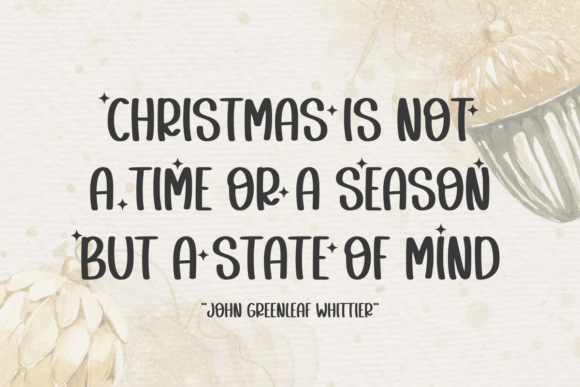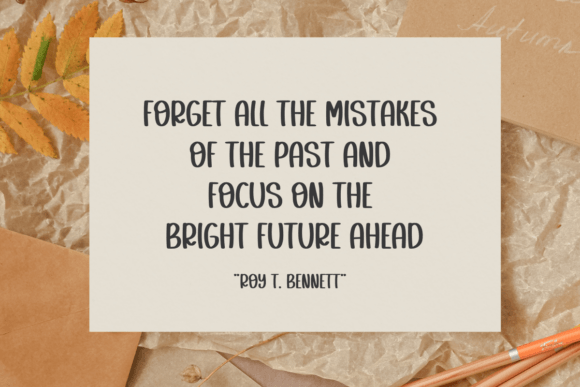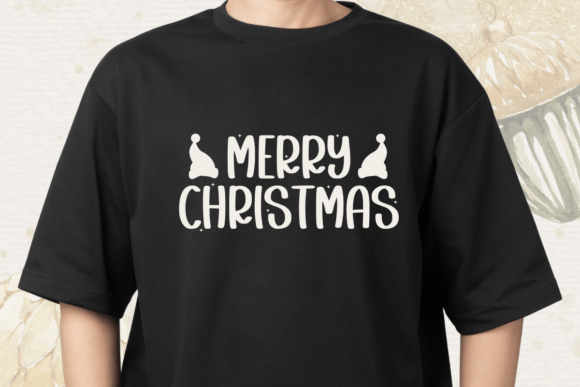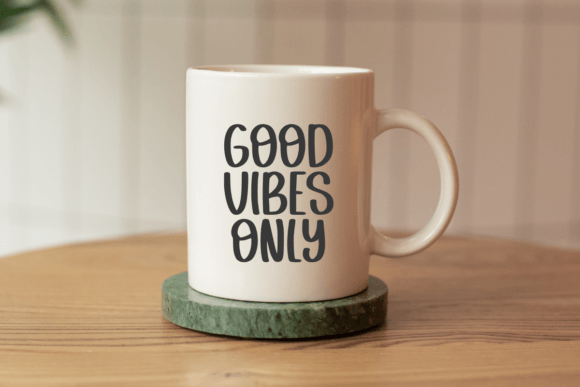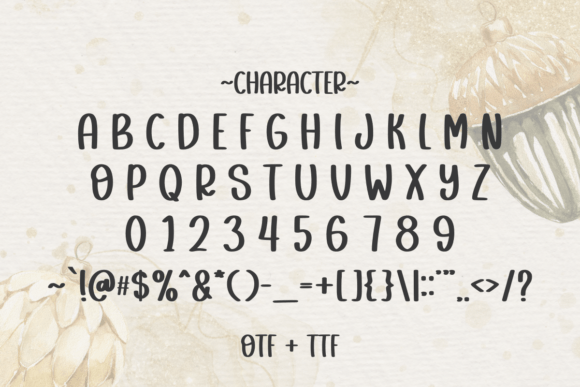
Introduction to Merry Modern Font
Have you ever found yourself rummaging through old family albums or Pinterest boards, searching for the perfect font to give your next creative project that extra oomph? For many designers, the hunt for the ideal typography is a never-ending journey, and it’s easy to get stuck in a rut. But what if I told you that there’s a font that’s sure to put a smile on your face and a spring in your step?
Enter the Merry Modern Font, a fun, bold sans serif font that’s inspired by the whimsical world of birthday invitation typography. This high-quality font is a design resource that’s perfect for any project that needs a dash of retro charm and a whole lot of personality. From t-shirt designs to planners, interior decor, and everything in between, the Merry Modern Font is a versatile and valuable addition to any designer’s toolkit.
Whether you’re looking to give your next project a free download feel or need a font that can handle a transparent background, the Merry Modern Font delivers. With its bold lines and playful vibe, this font is sure to be a hit with designers of all levels, from beginners to seasoned pros.
Key Features of Merry Modern Font
- High-quality, vector-based design for crisp and clear display in any size, perfect for creative projects and designs.
- Transparent background, making it easy to customize and combine with other design elements.
- Designed to be highly scalable, ideal for use in various design sizes, from small text to large headings.
- High-resolution design, suitable for use in print and digital media, including business cards, brochures, and website headers.
Honest Review: Merry Modern Font
As a designer, I’m always on the lookout for high-quality design resources to elevate my creative projects. The Merry Modern Font caught my attention with its sleek and modern aesthetic.
What works well: ✨ The Merry Modern Font has a very transparent background, making it perfect for overlaying on top of images or other design elements. The font itself is highly customizable, with a wide range of weights and styles to choose from.
- ✨ Transparent background for seamless overlays
- ✨ Highly customizable with various weights and styles
Overall, I think the Merry Modern Font is a solid choice for designers looking for a high-quality, modern font. While it may have some limitations, its strengths make it a valuable design resource.
Merry Modern Font
Merry Modern Font is a high-quality design resource that can elevate your creative projects. With its modern and elegant style, it’s perfect for various applications, including digital designs, print materials, and presentations.
Tips for Getting the Most Out of Merry Modern Font
To get the most out of Merry Modern Font, use it with a transparent background to create a modern and sleek design. Experiment with different font sizes and colors to add depth and visual interest to your project.
Merry Modern Font is perfect for various applications, including:
– Blog posts and articles
– Presentations and reports
– Business cards and marketing materials
– Digital invitations and event promotions